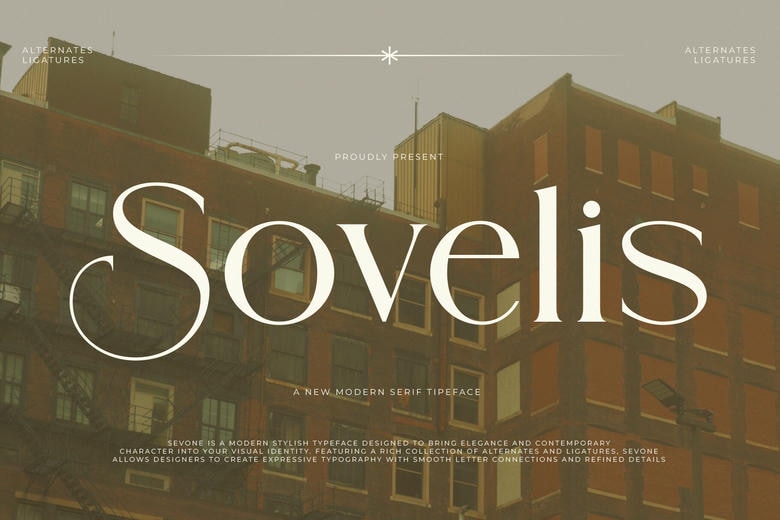
Sovelis Font
Sovelis is a modern, stylish display typeface with an architectural and high-end feel. Its high-contrast serif letters have elegant curves and sharp details, blending classic heritage with a contemporary look.
Sovelis offers a wide range of alternates and rhythmic ligatures, making it a top choice for luxury branding, high-fashion editorials, upscale real estate brands, and bold urban social media headers.